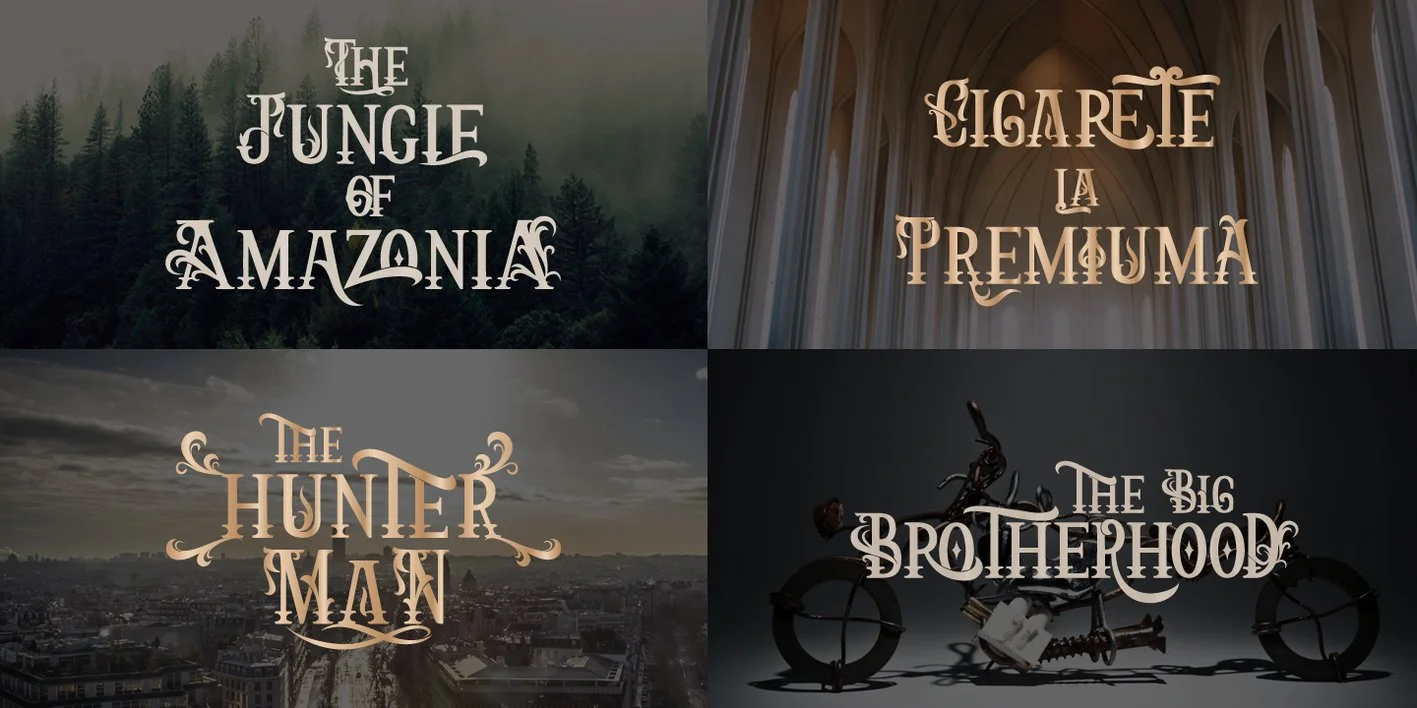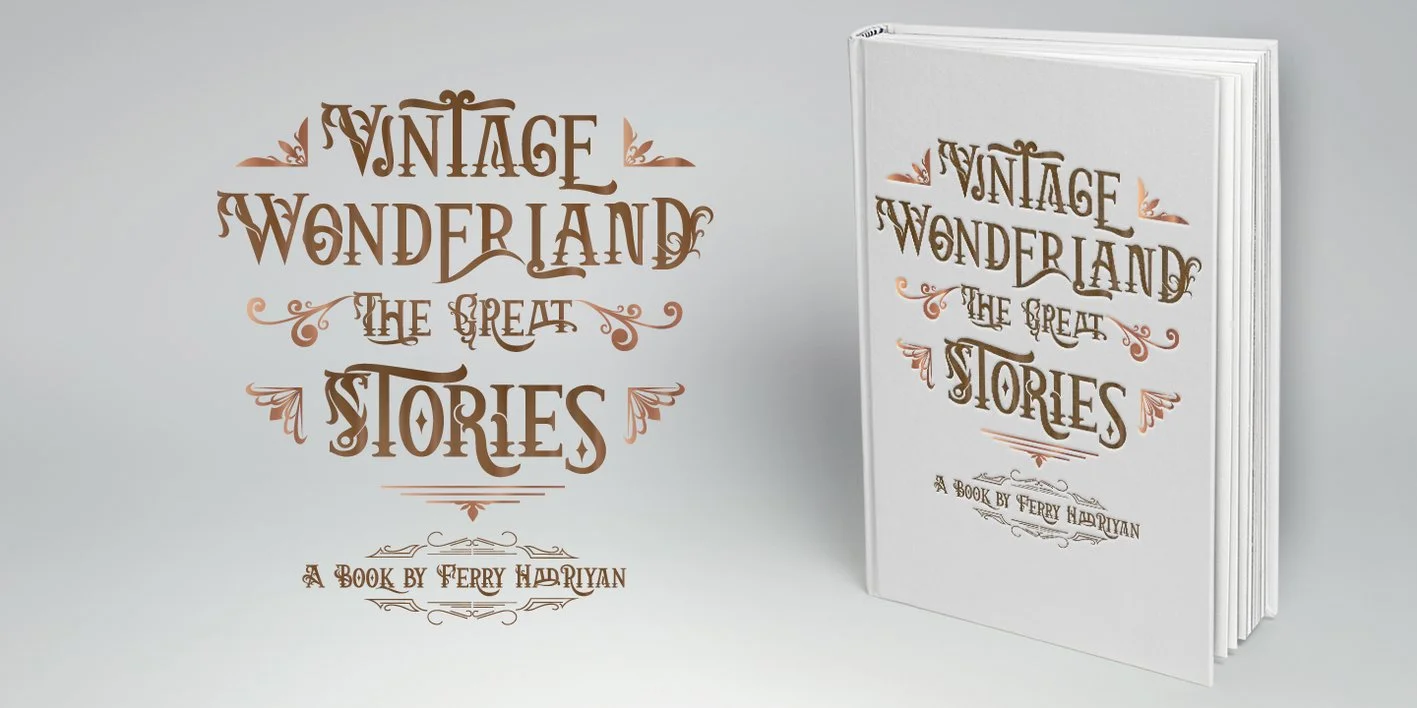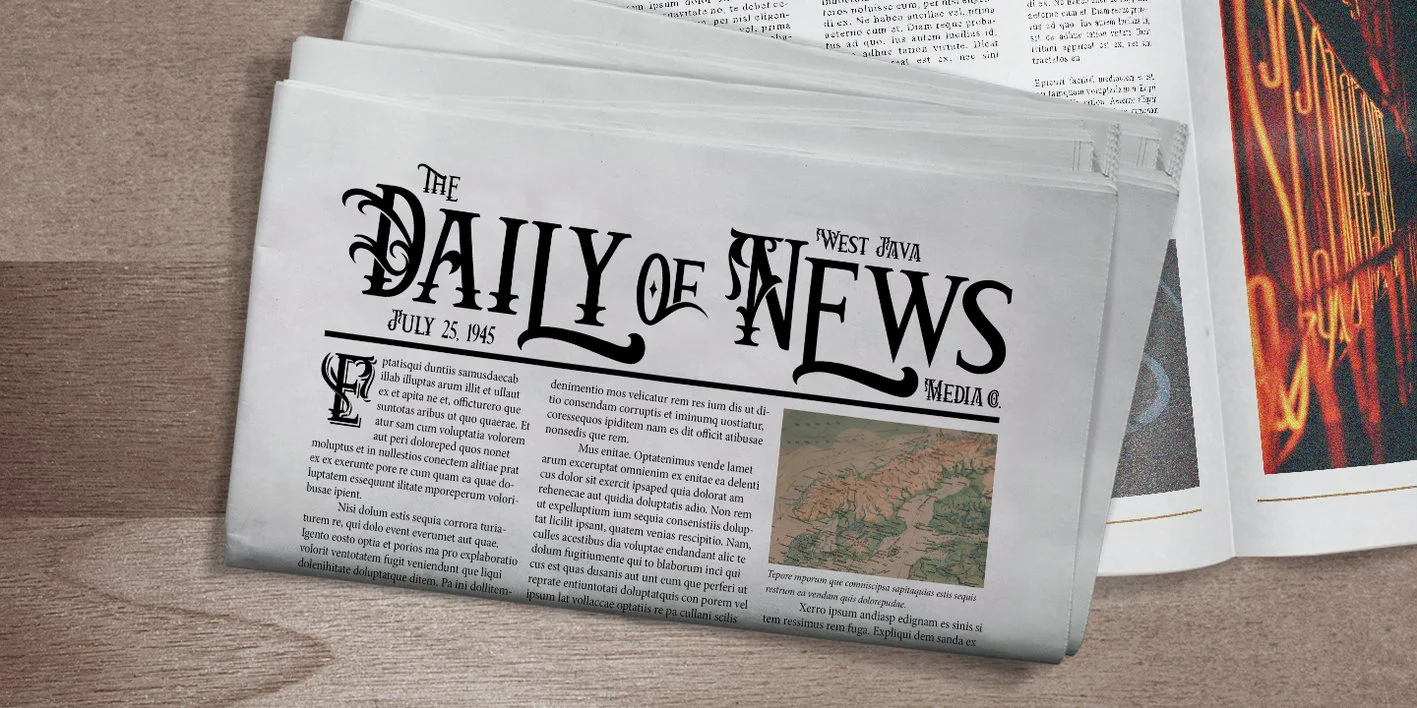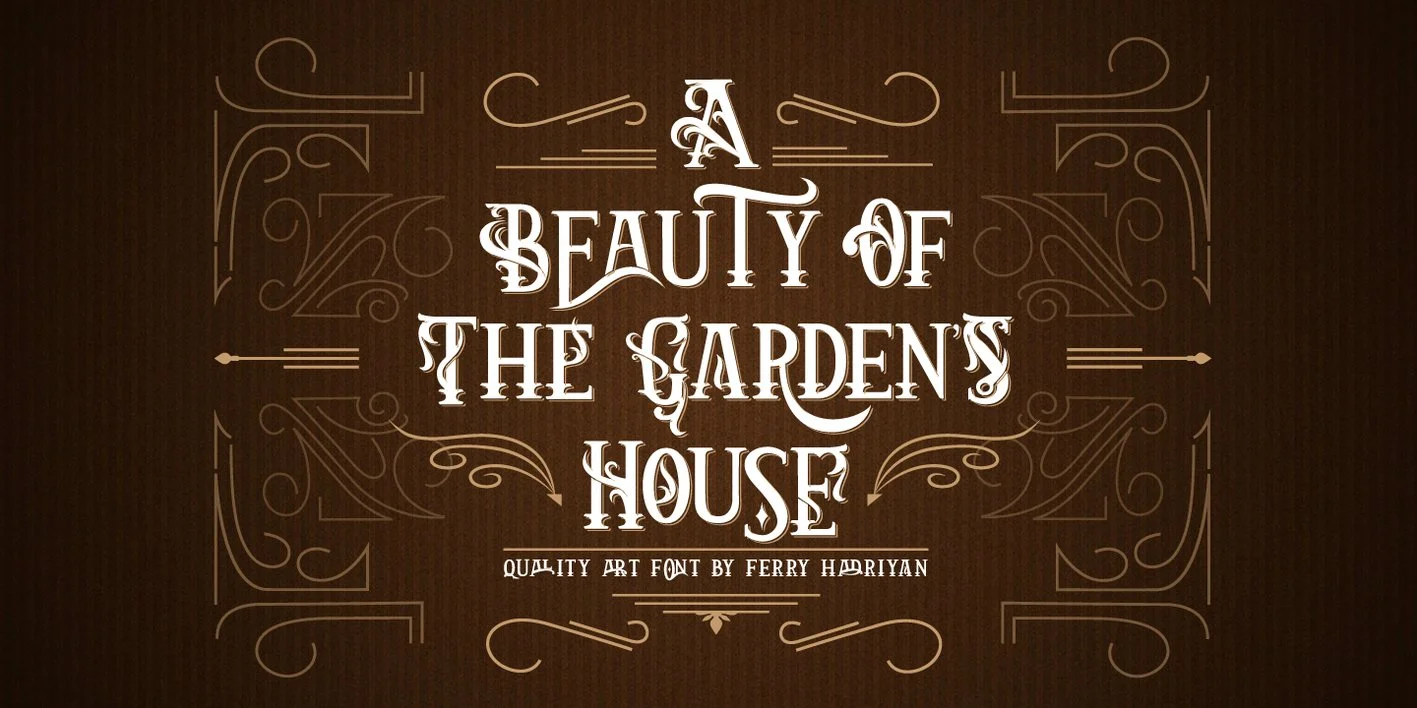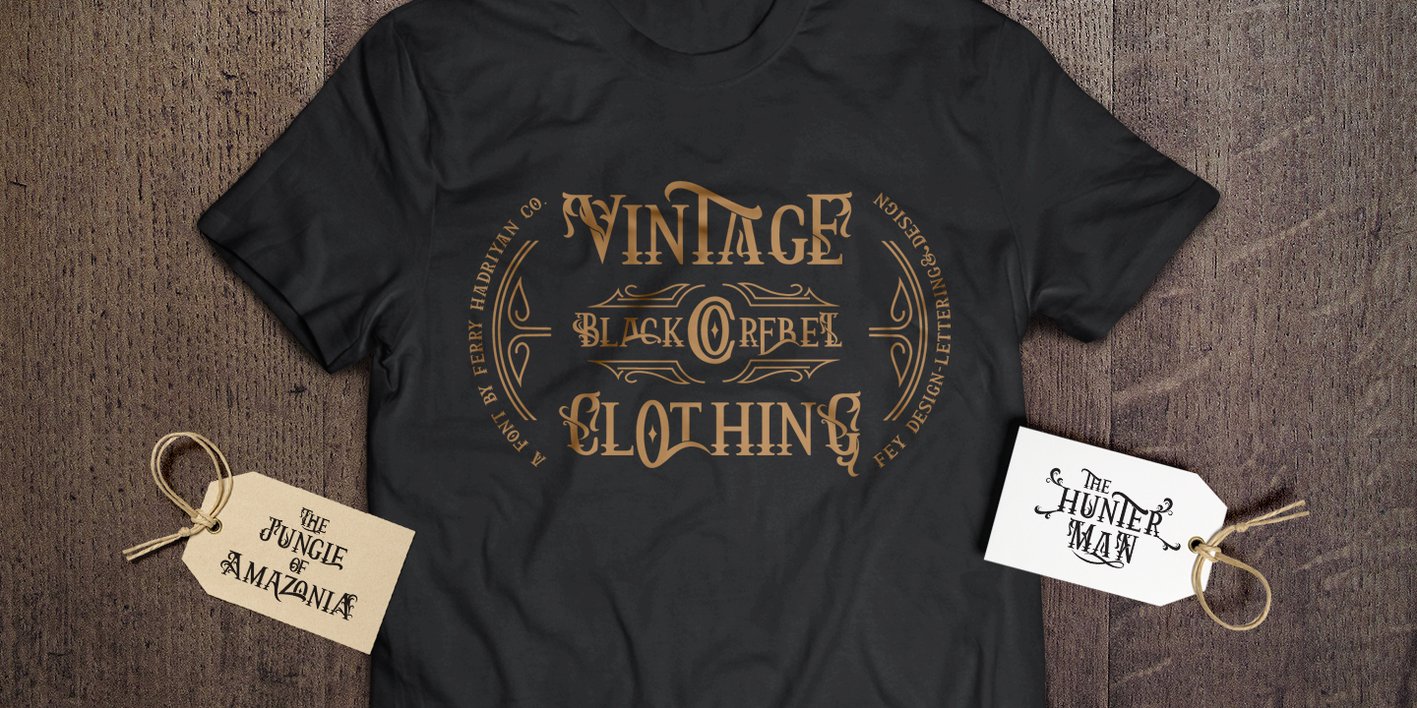
Arthouse Display Pro Font
Few typefaces manage to balance consistent type colour across continuous text with genuine day-to-day practicality. Arthouse Display Pro is one of them. The typeface brings a bold, impact-first sensibility to a broad range of creative disciplines, with optical balance across all weights that holds up whether the work is print-first or screen-first.
In practice, Arthouse Display Pro proves particularly effective for logo design, statement graphics, bold headlines, merchandise design, editorial layouts. Designers reaching for it find that the type decisions feel resolved rather than laboured — a useful quality when client timelines are tight.
The range of applications extends to web design, brand identity systems, product labels, album artwork. That breadth is deliberate: the proportions and spacing were stress-tested across a wide range of mock briefs before the typeface was finalised.
The counters are drawn larger than conventional text faces, ensuring that each letterform reads as a distinct, confident shape from a distance. Optical adjustments correct the tendency of high-contrast strokes to appear uneven when viewed at display sizes.
In-house creative teams at consumer brands find Arthouse Display Pro a reliable choice for projects that demand both personality and restraint. The design avoids the self-conscious quirkiness that dates quickly, settling instead for considered distinctiveness that holds up over time.